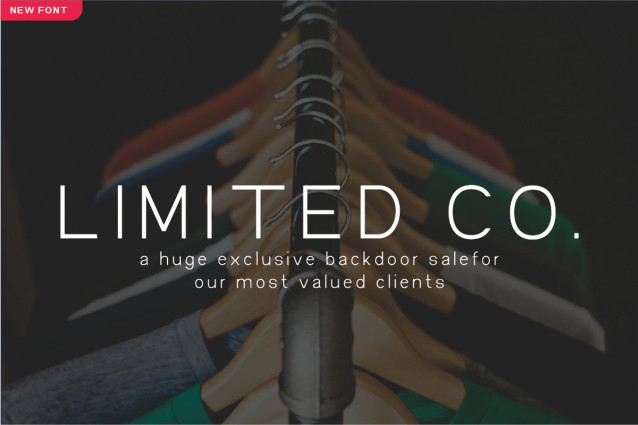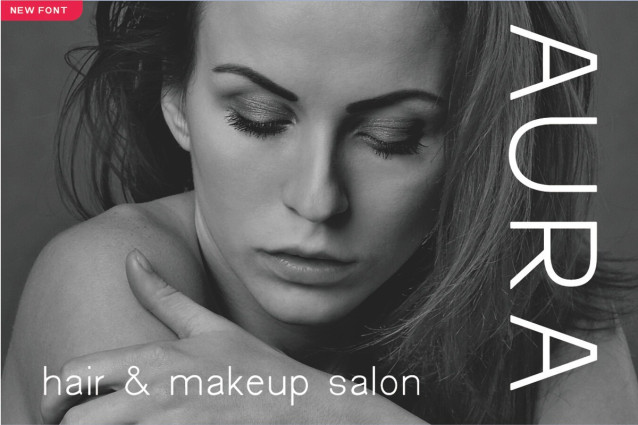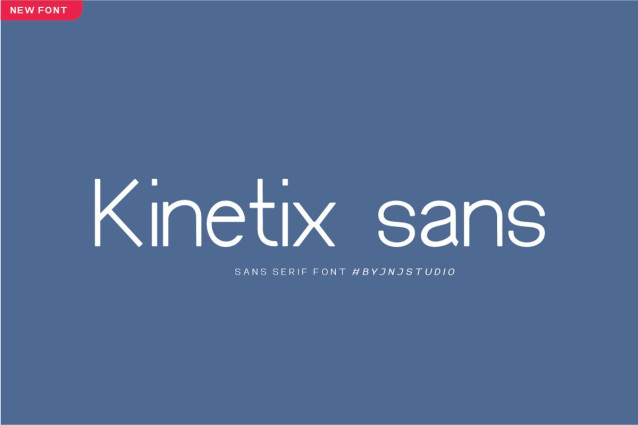
Kinetix Sans Font
Kinetix Sans Font is a modern sans serif typeface designed to capture the essence of motion, clarity, and precision. Built with clean geometric structures and balanced proportions, it delivers a sleek and contemporary look that feels both dynamic and professional.
With its sharp edges, open apertures, and carefully crafted spacing, Kinetix Sans ensures high readability across digital and print media. The letterforms are streamlined yet expressive, making it ideal for branding, technology interfaces, editorial layouts, and forward-thinking visual identities.